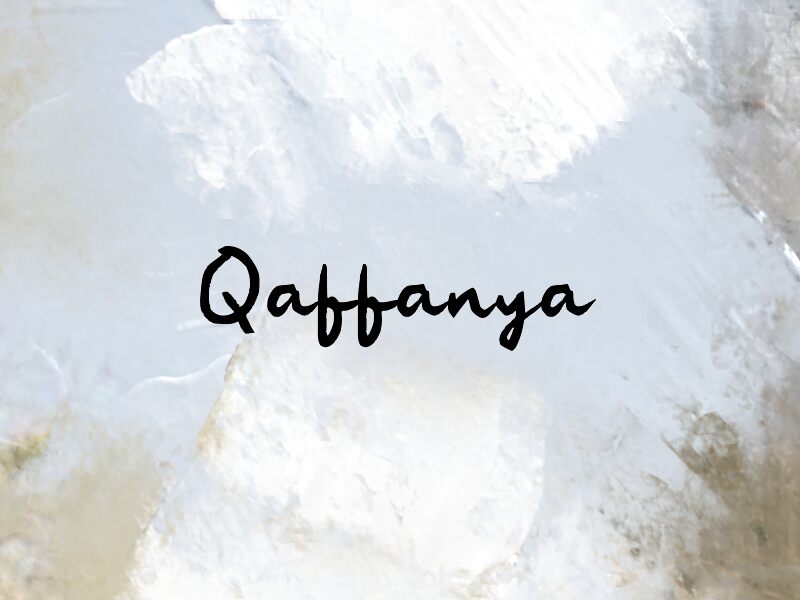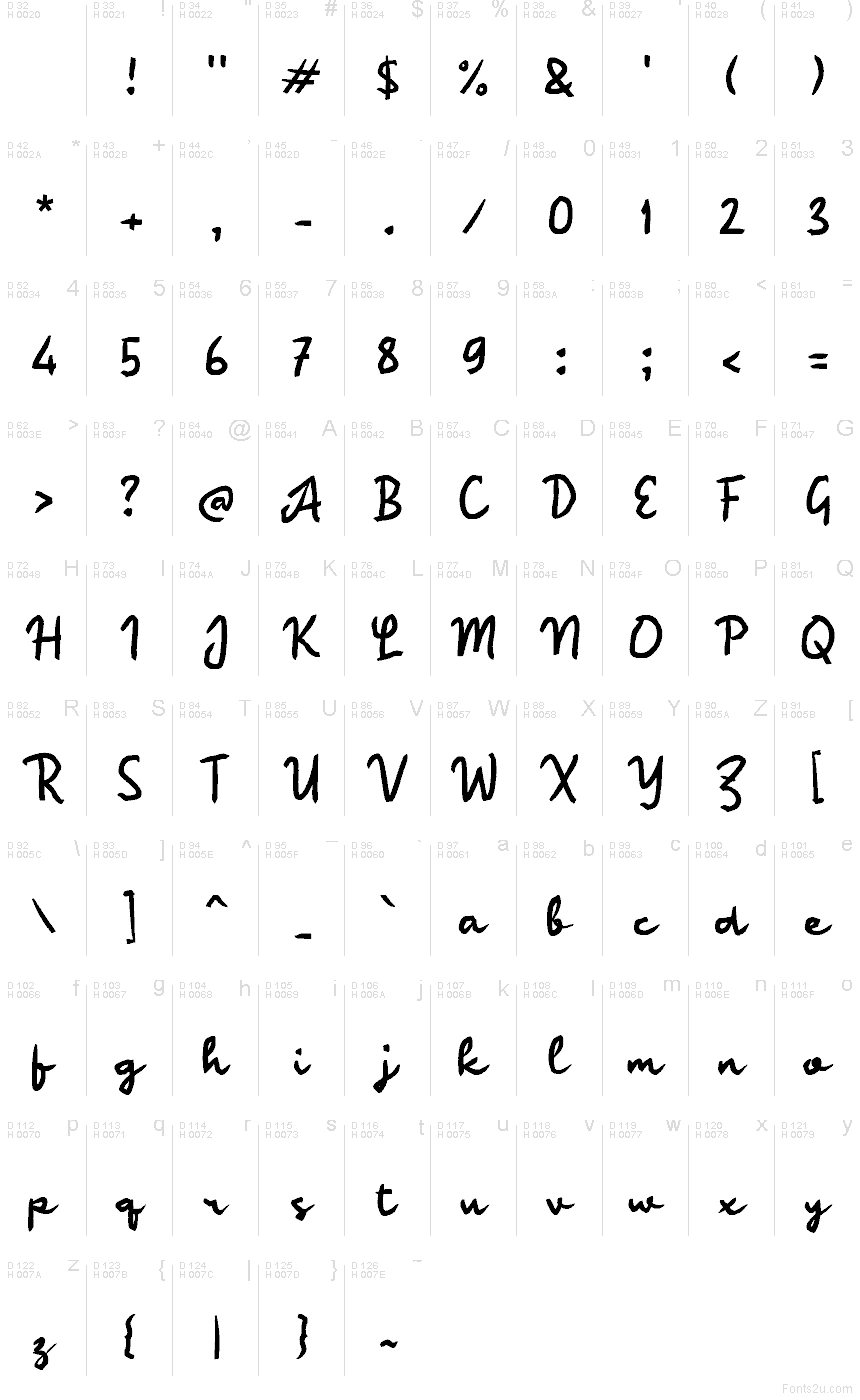
Qaffanya
Qaffanya font by wep is a free handwritten font that captures the feel of a quick, confident note written with a smooth marker. The strokes are bold yet relaxed, with just enough wobble to feel human but not messy, so your text reads clearly even at smaller sizes. It has an easygoing, personal tone that feels more like a real signature than a polished calligraphy style.
Using Qaffanya, you can give warmth and personality to logos, Instagram posts, packaging, greeting cards, product labels, and casual branding. This free font works beautifully for short phrases and headings that need to feel approachable and authentic. Try pairing Qaffanya with a clean sans-serif for body text and keep Qaffanya in slightly larger sizes so its handwritten texture really comes through.